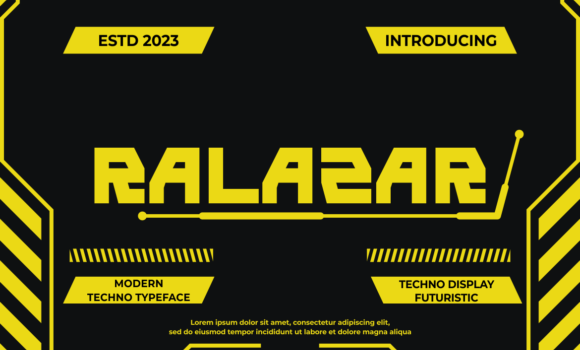
ralazar
Ralazar Font – Free Download Introduction to Ralazar Font Ralazar is a cool, bold, and modern display font. 📸 Preview Gallery 2 images 📌 Product Name Ralazar Font 👤 Author maikofarazhatta 📂 Category Explore ⬇️ Download Ralazar Font FREE Free